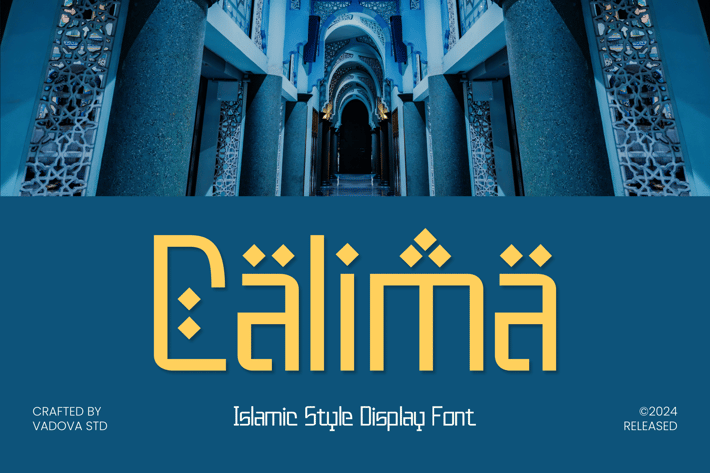
Calima Islamic Font
Calima Islamic Font is a bold display font that gracefully blends Islamic ornamental aesthetics with clean, modern design. With its symmetrical, geometric construction and elegant line work, Calima feels sacred, timeless, and cutting-edge all at once.
Perfectly suited for Ramadan campaigns, mosque branding, Middle Eastern packaging, Arabic festival events, and Islamic art posters, Calima brings both spiritual warmth and contemporary flair. Its diamond dot diacritics and modular forms make it culturally relevant while still universally appealing.